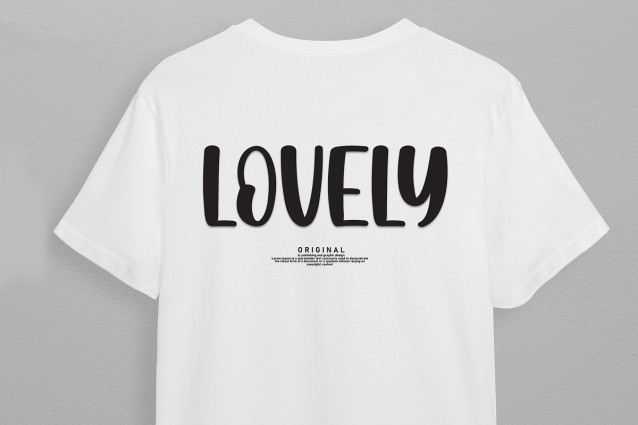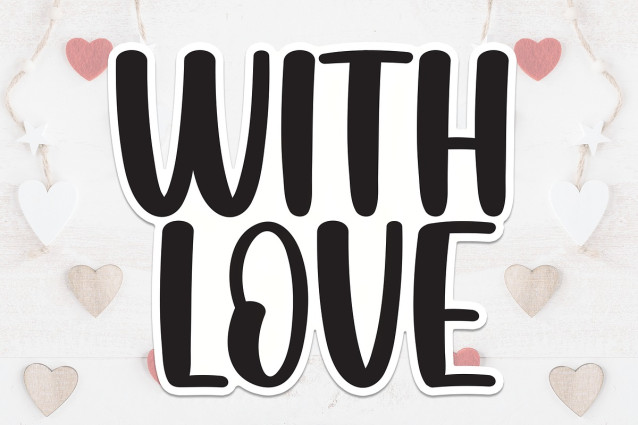
With Love Display Font
With Love Display Font A popular and professional script font. Modern and elegant, this typeface is made of beautiful creative strokes.
This font is perfect for your creative ideas, both formal and informal. It has a modern style with a touch of creative ideas that is very suitable to be applied anywhere that requires creative ideas such as invitation cards,letterheads, website logos, social media, banners, advertisements, brochures, packaging products, leather products, and any product that requires writing.
By using this font, all of your products will look luxurious, elegant, and attractive, please try and see the results.
This font includes a complete set of beautiful upper and lowercase letters, numbers, a wide variety of punctuation marks, and ligatures. All lowercase letters include a start and end, providing a realistic style. everything you get.